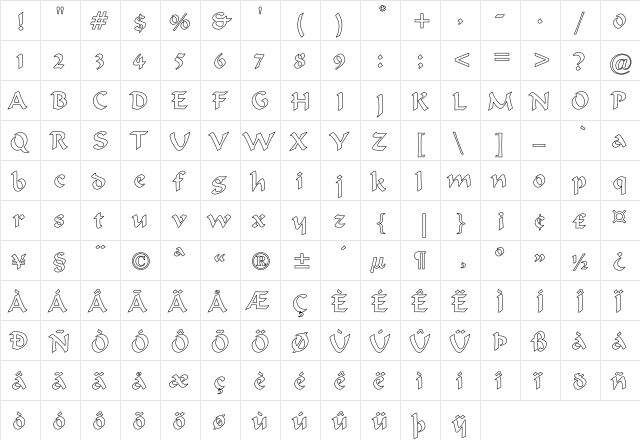
FormalScript-Regular Ho Regular
Design Context for FormalScript-Regular Ho Typeface
FormalScript-Regular Ho brings a calligraphic fluidity to the page — its connecting strokes and expressive curves give it an unmistakably human quality.
Font Pairing: Combine FormalScript-Regular Ho with a simple geometric sans for maximum contrast — the tension between flowing curves and clean structure is a classic typographic pairing.